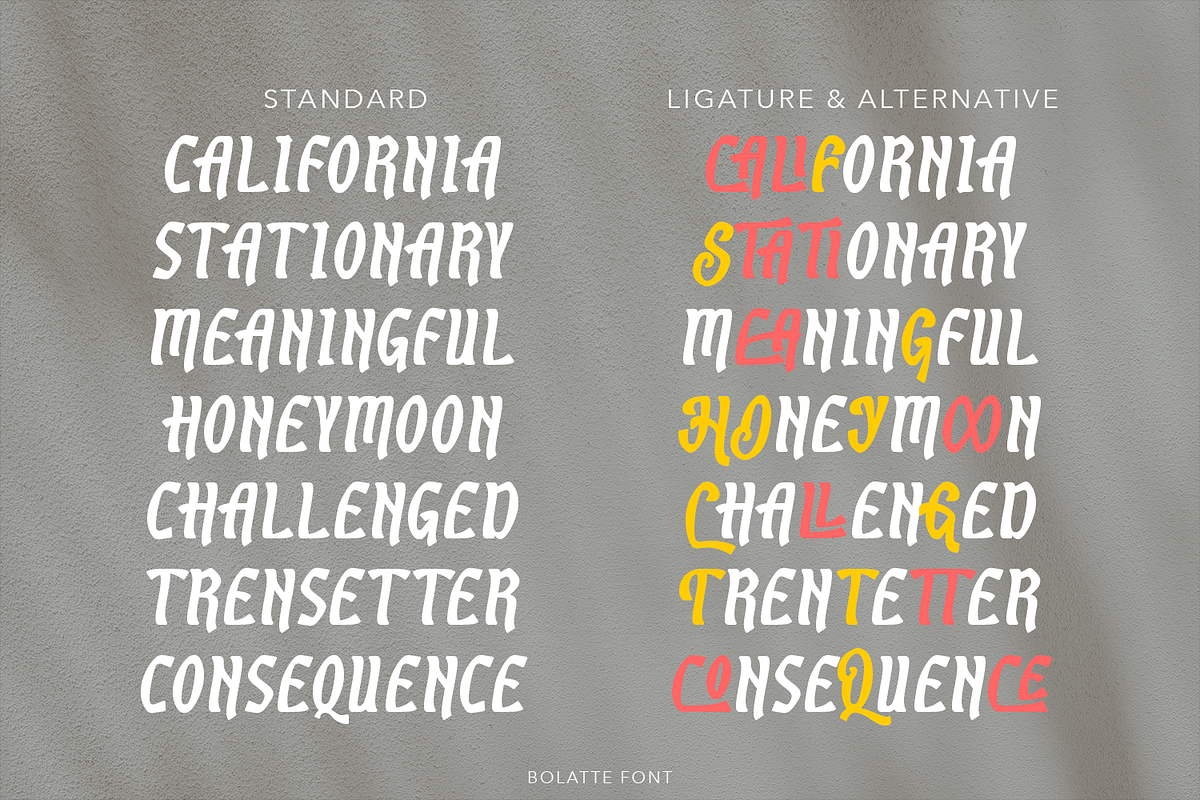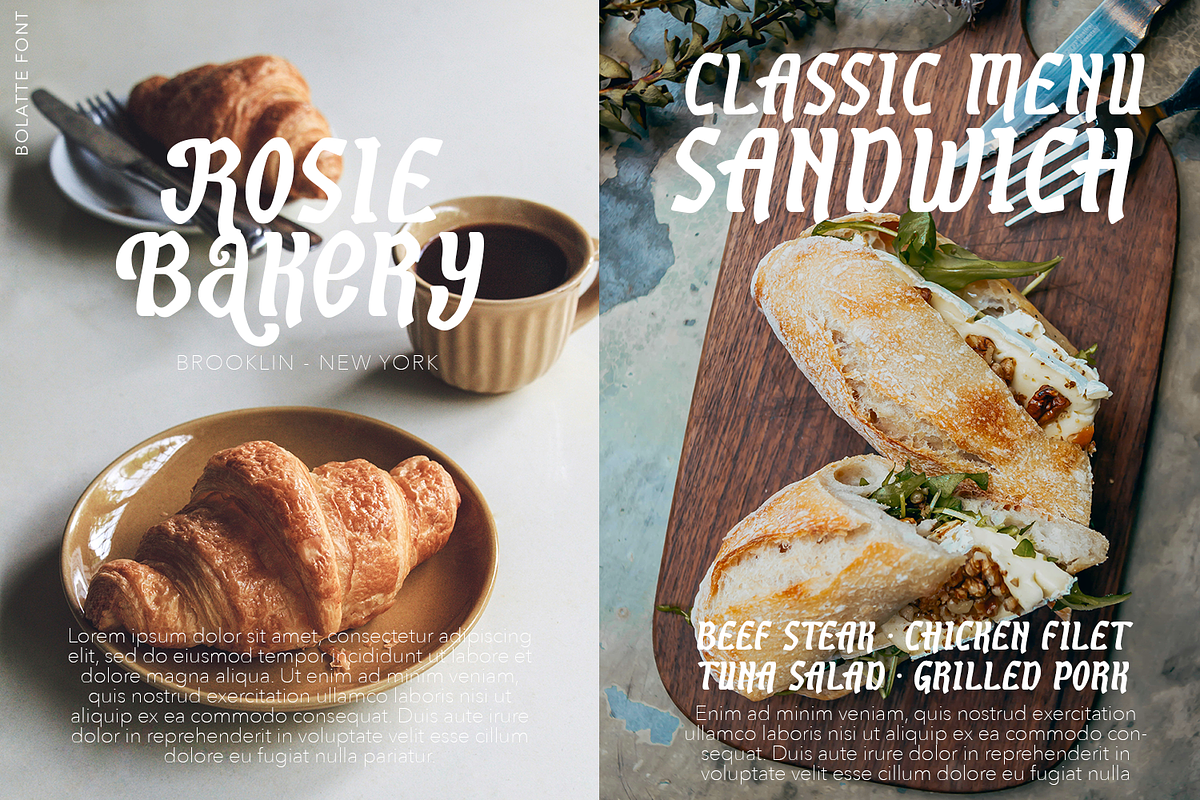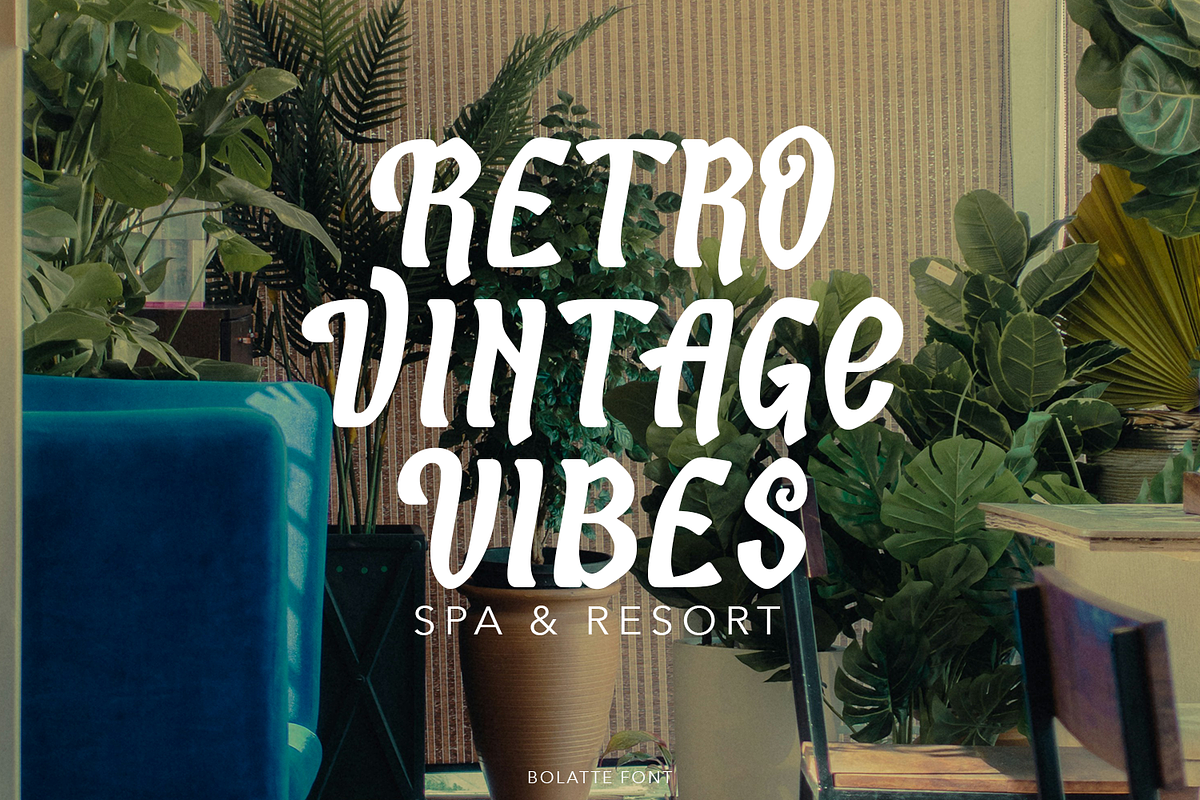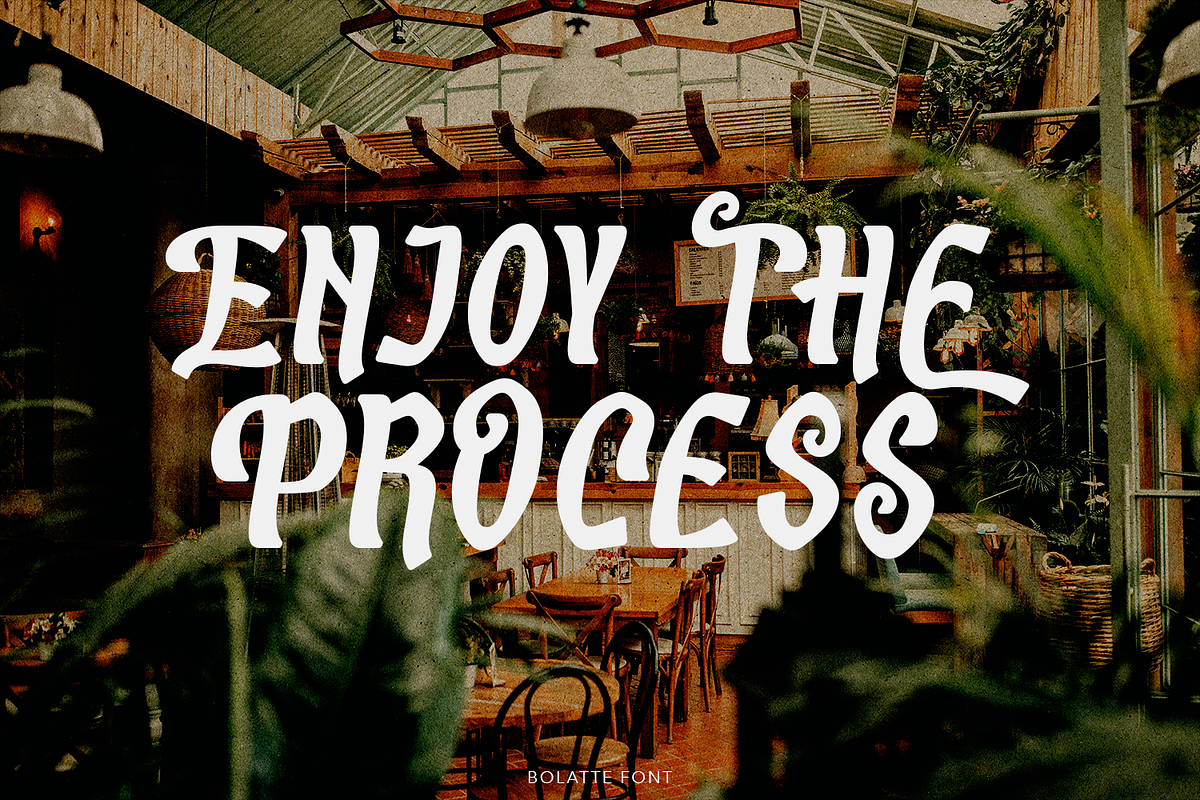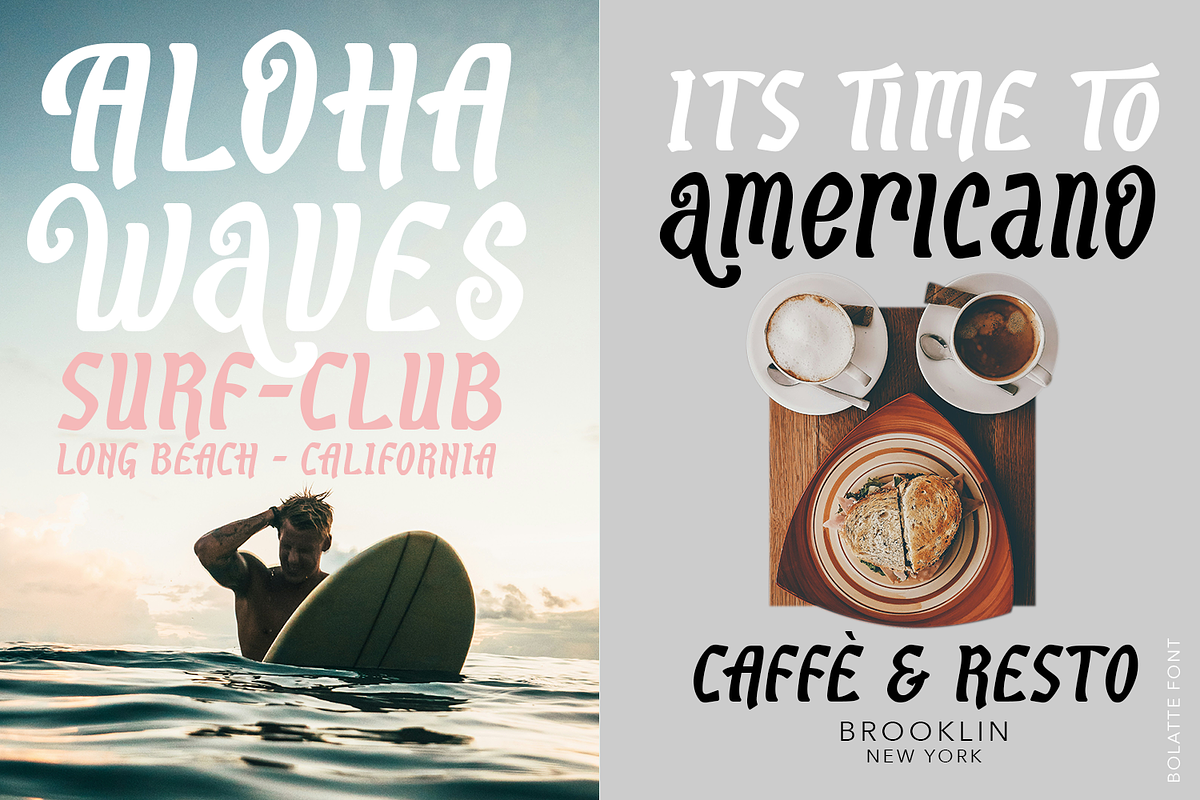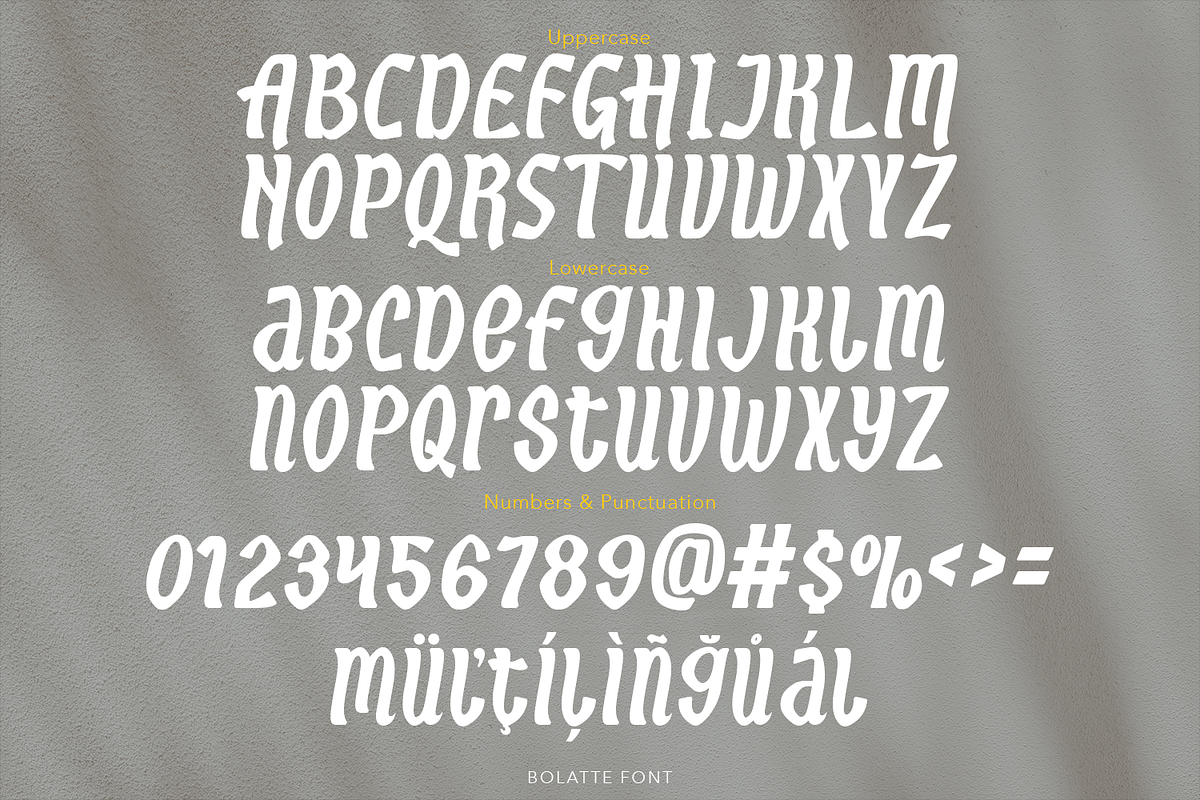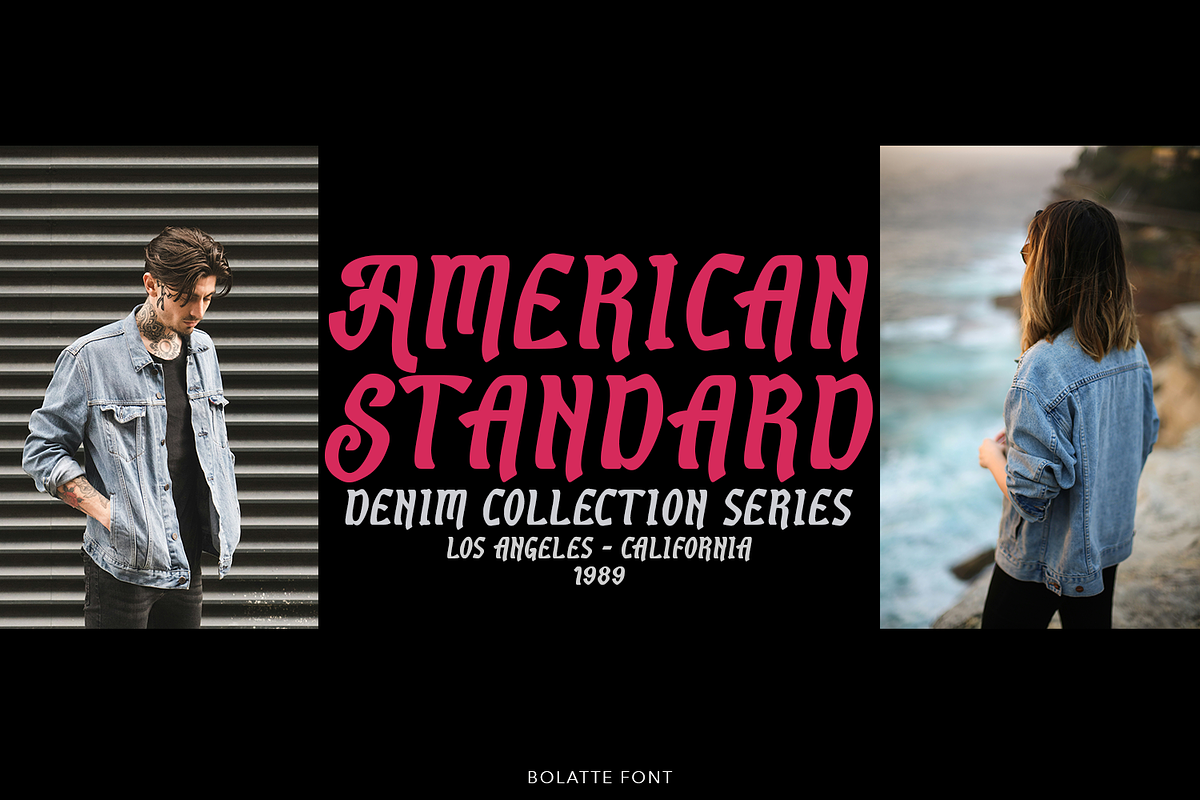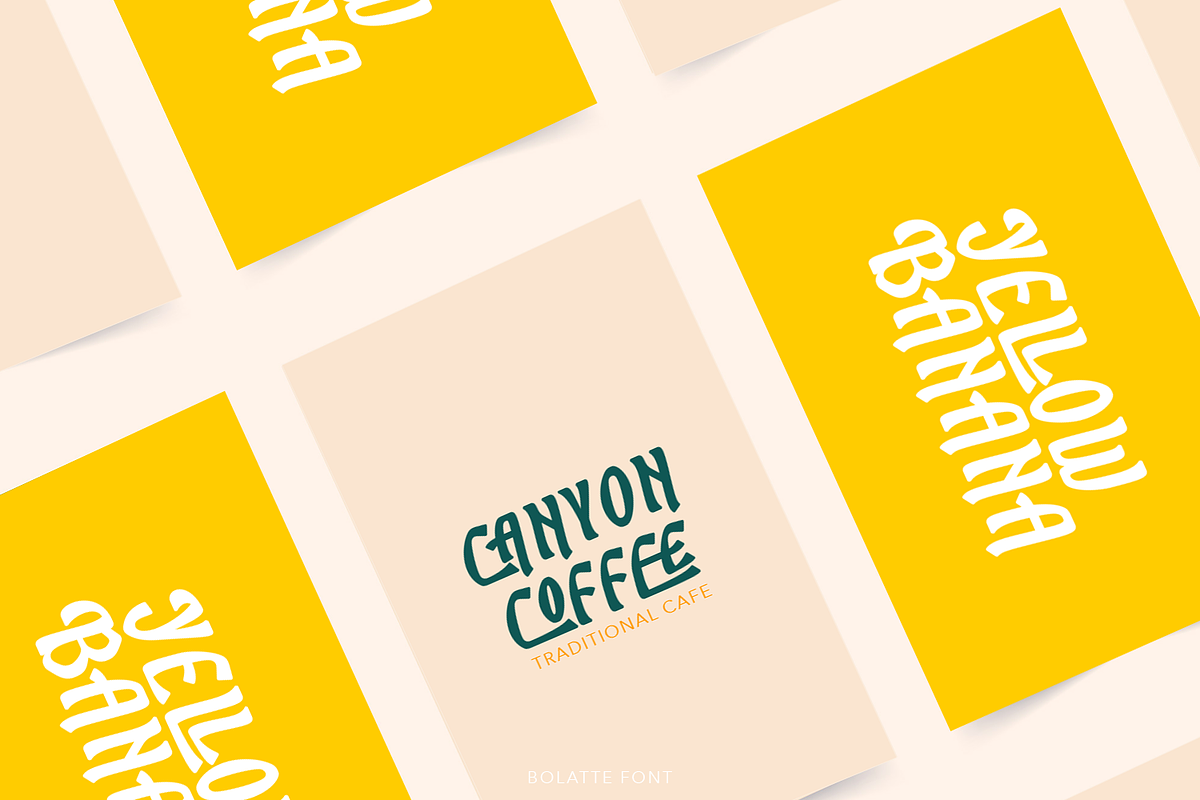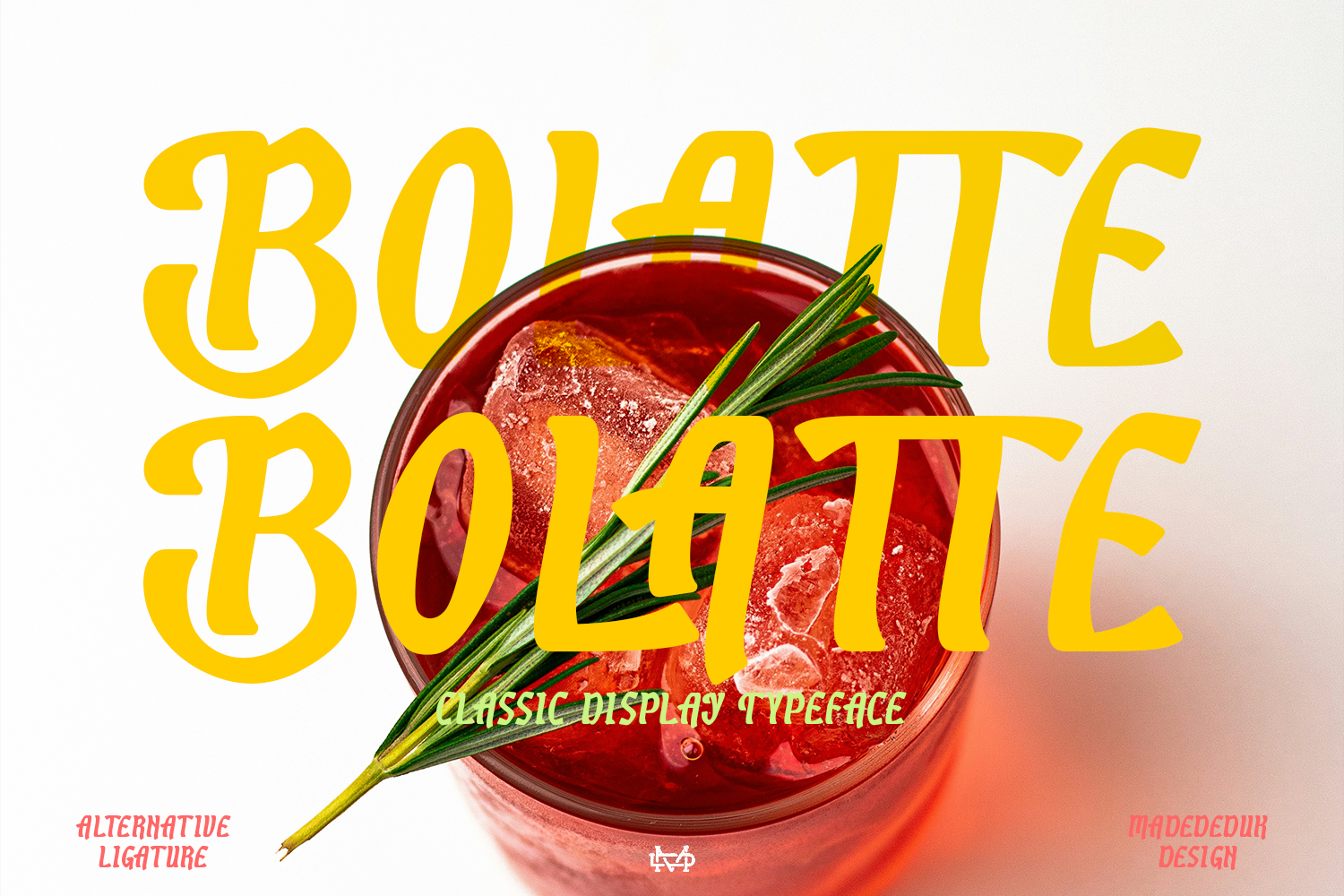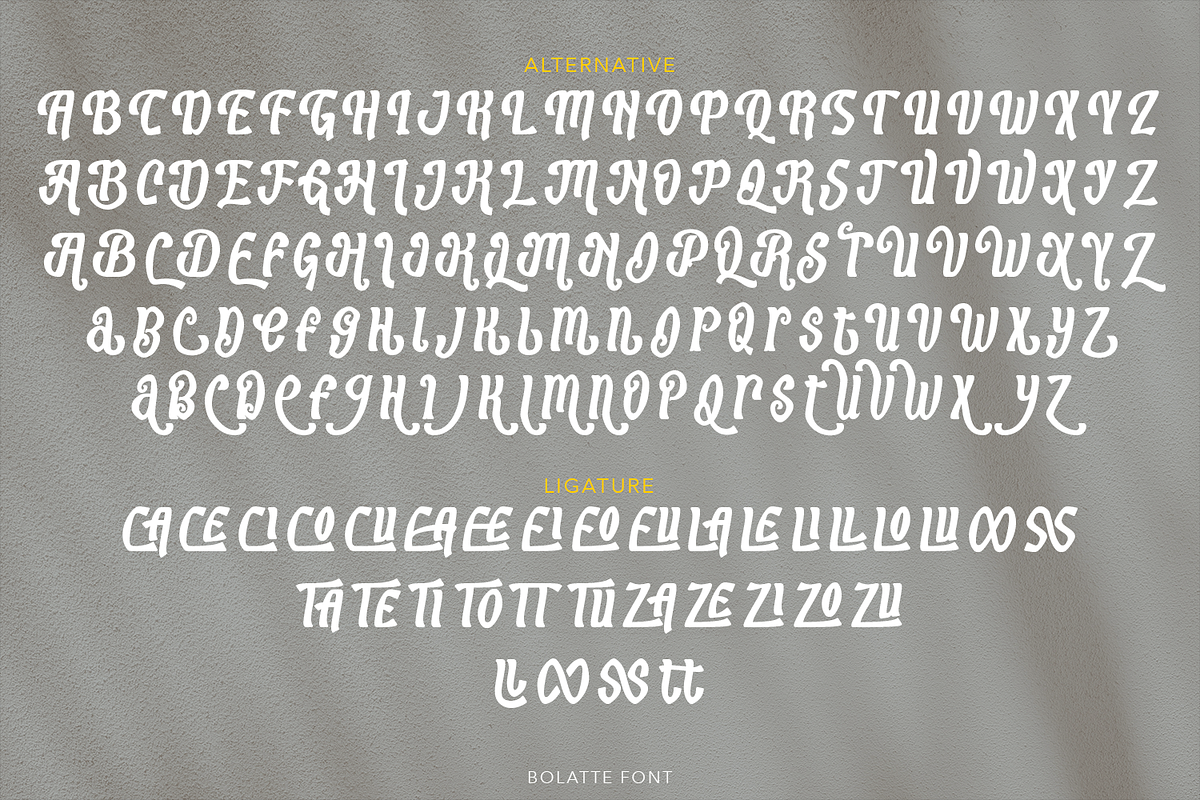
Bolatte Display Font
Bolatte is a display font, simple curves with equal height and smooth corners that are suitable for fashion environments and that you can explore and mix for any kind of your design. Use this font for any brand, product packaging, invitations, quotes, t-shirts, labels, posters, logos, etc.
- International Glyphs